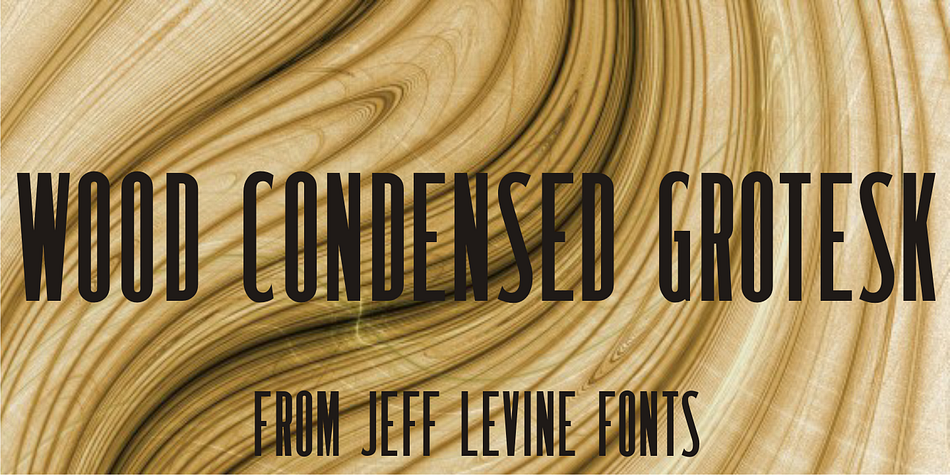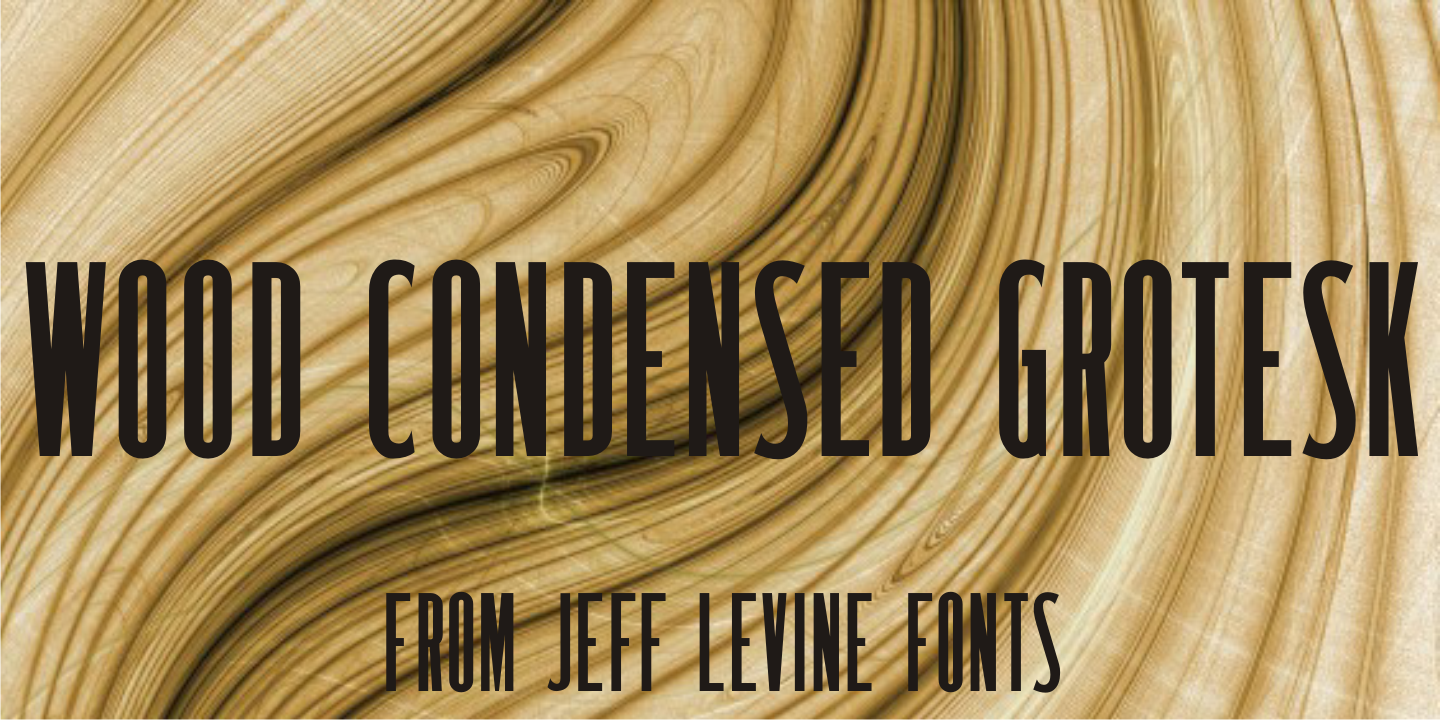
Wood Condensed Grotesk JNL is a display sans font published by Jeff Levine Fonts.
The font was a popular sans used for large posters or broadsheets as well as newspaper titles where more copy needed to be fit into limited space.